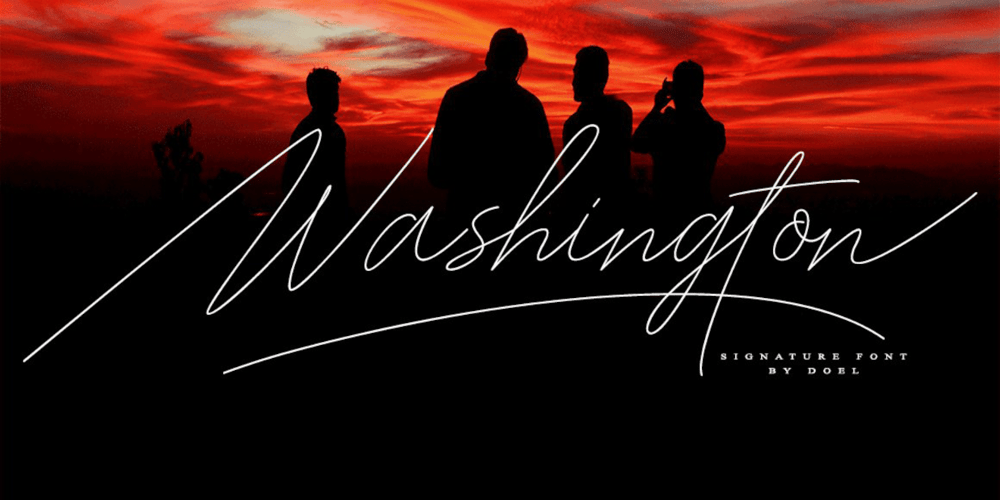
Washington Mono Line Font Family was designed by Fajri Yandi and published by Doeltype. Washington Mono Line contains 1 styles and family package options. Hi Ladies and Gentleman !Introducing the Washington Mono Line font is a simple and classy font, comes with Elegant Variations, opentype features such as stylistic alternates, initial and final form, Washington Mono Line Features 515 glyphs and ligatures. We keep this font looks elegant, classy, readable, stylish, catchy and easy to use. The Washington Mono Line Font is the right choice for photography, signature or signature logo design, quotes, album covers, business cards, and many other design projects. From business cards to photo watermarks, because the Washington Mono Line font is a stylish signature with luxury. This is a very charismatic & confident font choice for your various design projects.